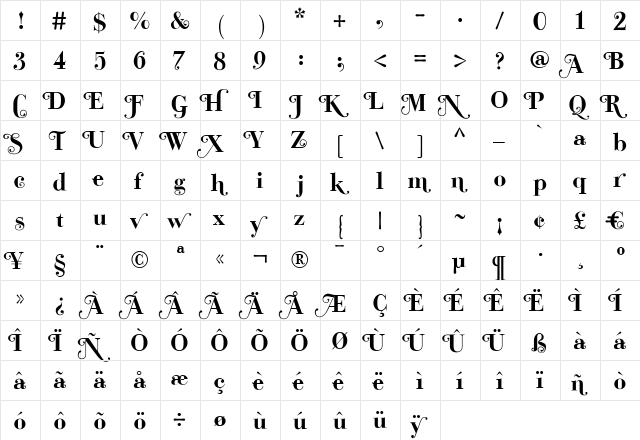
Bodoni Classic Swashes Bold
Design Context for Bodoni Classic Swashes Typeface
Bodoni Classic Swashes wears its vintage influences proudly, with letterforms that recall mid-century signage, classic packaging, and nostalgia-driven design. Its bold stroke weight gives it real presence on the page.
Ideal for diner signage, record shop branding, 70s/80s-themed projects, and heritage product labels.
Font Pairing: Combine Bodoni Classic Swashes with a simple slab or neutral sans — period-accurate companions reinforce the vintage feel without competing for attention.
Pro Tip: Lean into Bodoni Classic Swashes's period character by pairing it with aged paper textures, muted colour palettes, and vintage illustration styles.